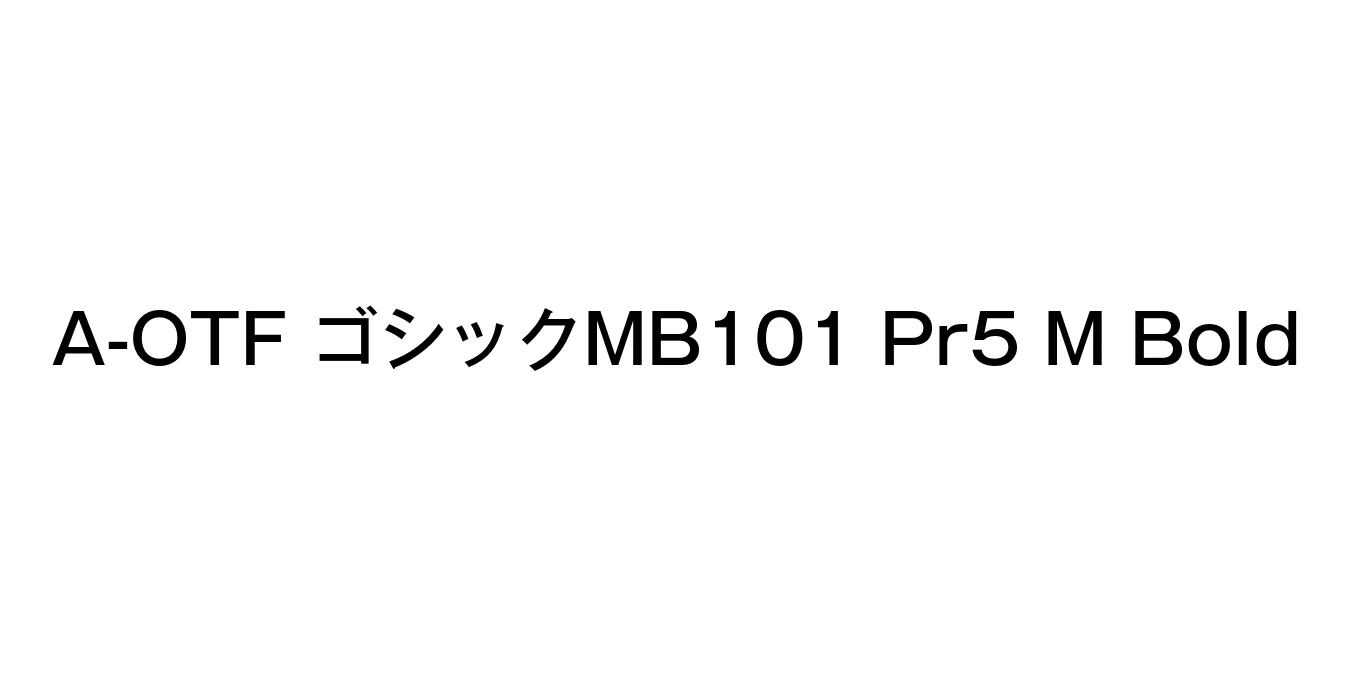
A-OTF ゴシックMB101 Pr5 M Bold
Designed by Morisawa Inc.
| Category | Gothic (Sans-serif) |
| Designer | Morisawa Inc. |
A-OTF Gothic MB101 Pr5 M Bold is a cornerstone of Japanese typography, developed by the renowned Morisawa foundry. This typeface is a refined modern Gothic (sans-serif) style that traces its lineage back to traditional metal type, reimagined for the digital age with rigorous attention to optical balance and stroke consistency. It is highly regarded for its sturdy construction and classic proportions that ensure legibility across various media.
The Pr5 designation indicates that the font supports the Adobe-Japan 1-5 character collection, offering a vast array of kanji, kana, and symbols required for professional publishing. The Bold weight is specifically engineered for high-visibility applications, making it a staple in Japanese advertising, magazine layouts, and environmental signage where a professional and authoritative tone is required.
A-OTF ゴシックMB101 Pr5 M Bold Best Uses
Perfect for bold headlines, magazine covers, and book titles.
Ideal for high-impact posters, flyers, and outdoor billboards.
Provides a trustworthy and modern visual identity for corporate logos.
Suitable for hero sections and navigation menus requiring clear Japanese typography.